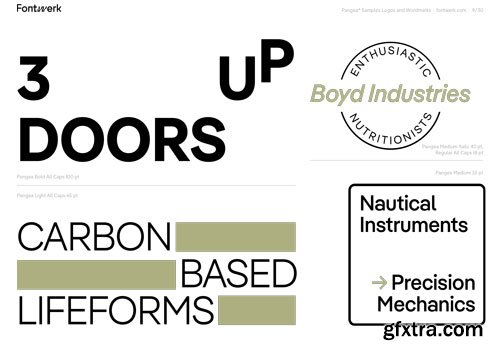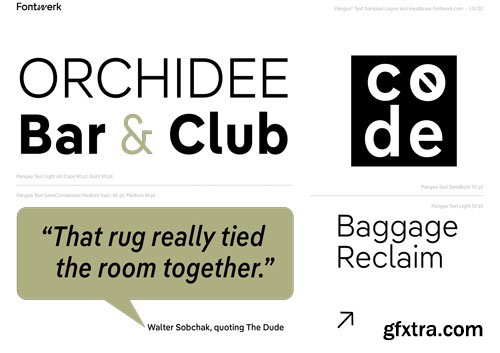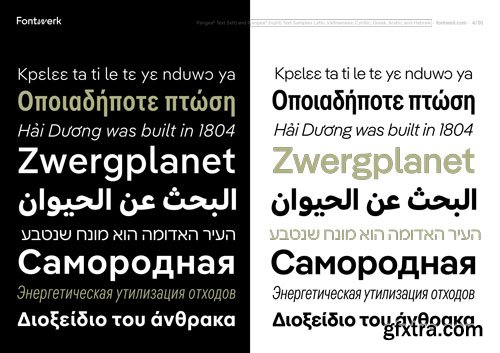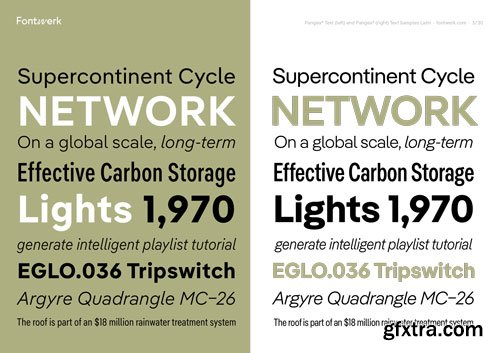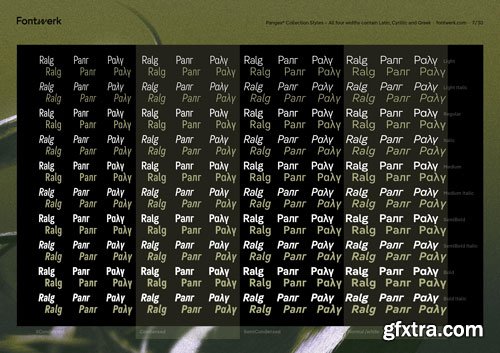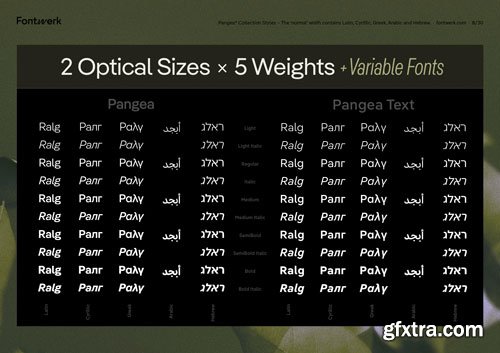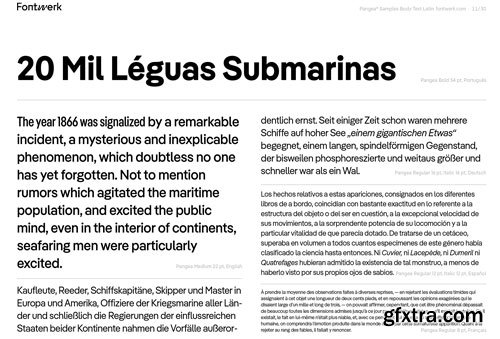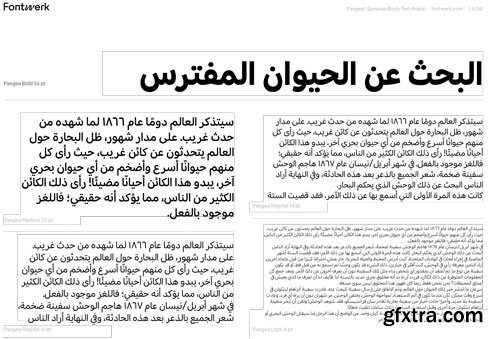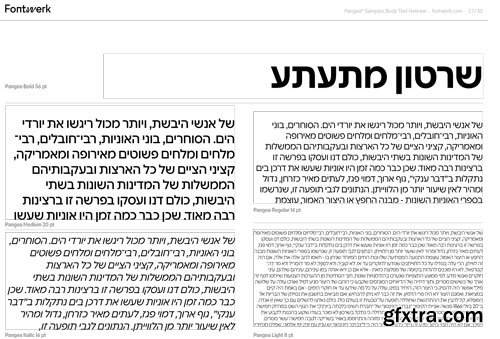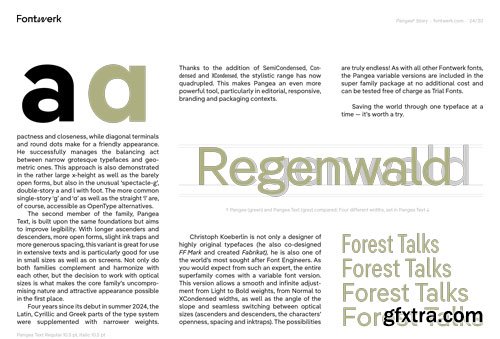
- For Christoph, the connection and connotation of the name was of great importance. Just like the primeval continent that the typeface is named after, Pangea is a symbol of not only the big (common) picture but of global cooperation. While Gergő Kókai from Hungary supported him in the design of the upright characters, he brought Tanya George from India and the Japan-based Gabriel Richter on board to work on the italics. He consulted with Irene Vlachou from Greece, Ilya Ruderman from Russia, Donny Truong from the USA and Paul Hanslow from Australia to ensure the quality of the Greek, Cyrillic, Vietnamese and African Latin characters. The spacing and the kerning of the font would not have been possible without Igino Marini from Italy and his superior iKern technology.
- Broad foreign language support is almost obligatory with such an omnicultural approach. From the beginning, European Latin, Cyrillic, Greek and Vietnamese language support have been included in Pangea as standard. The first language extension was Pangea Afrikan which supports all Latin-based African languages and some indigenous languages of North America and it was released a corresponding (subset) for free in the Base License towards the end of 2021!